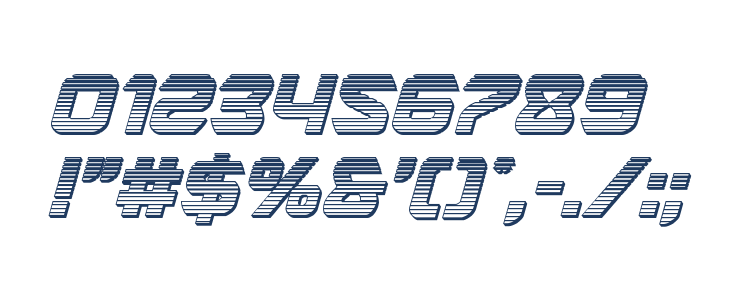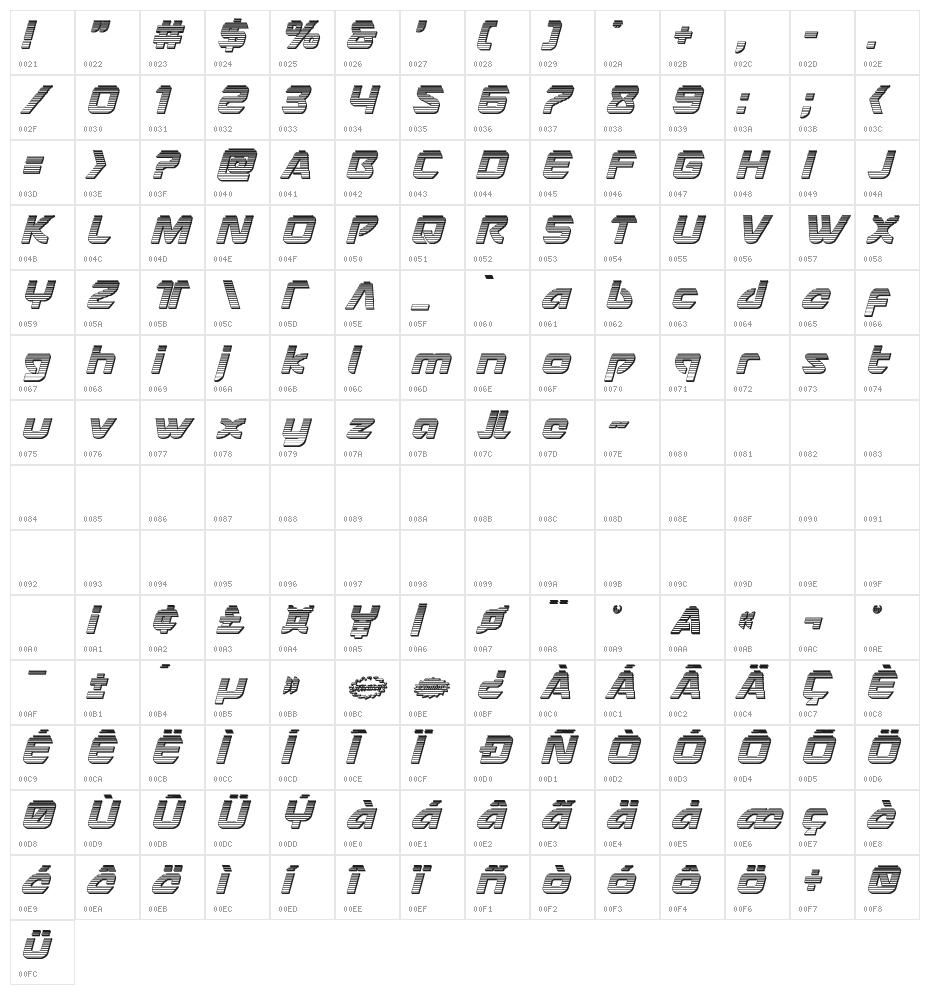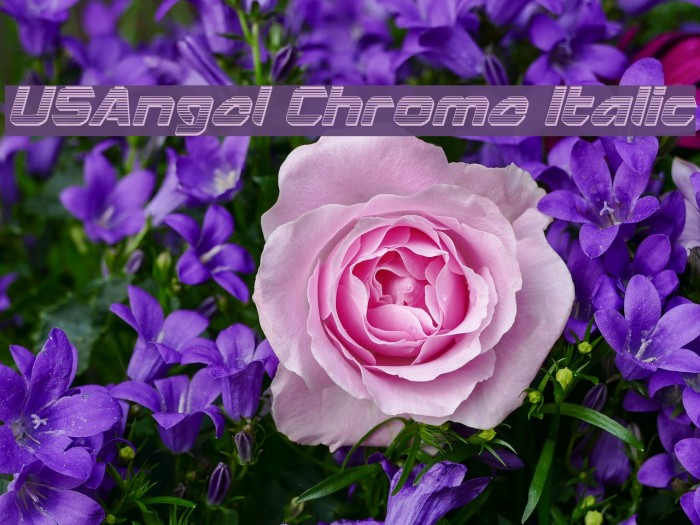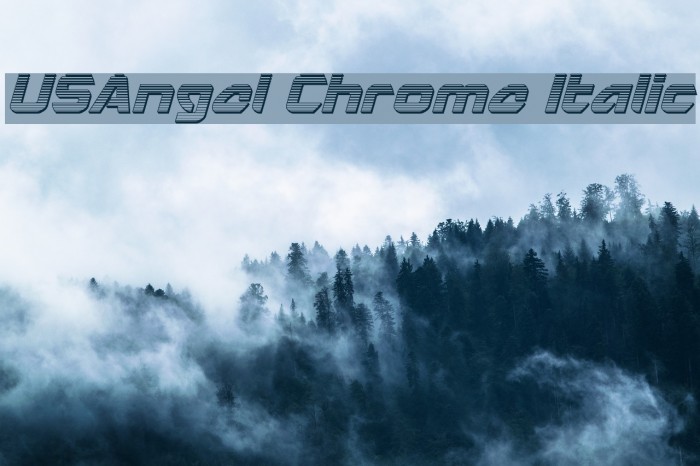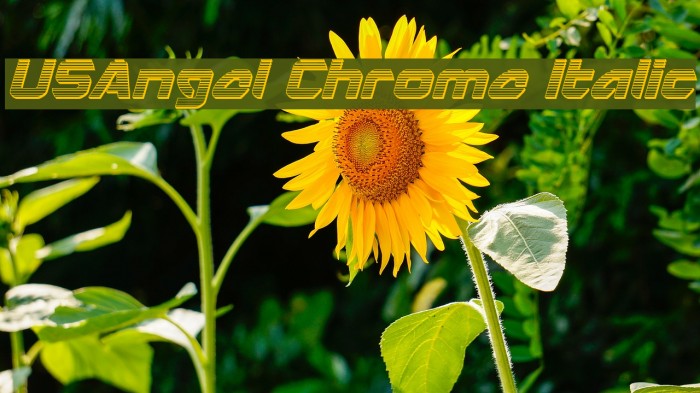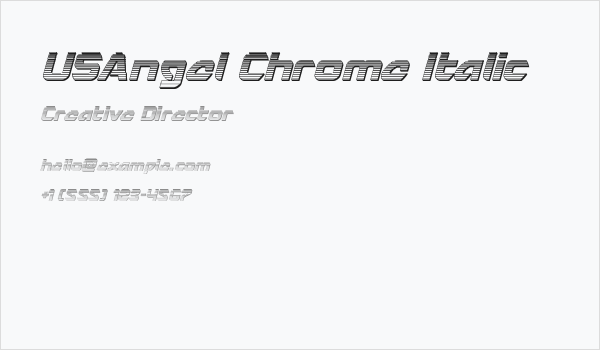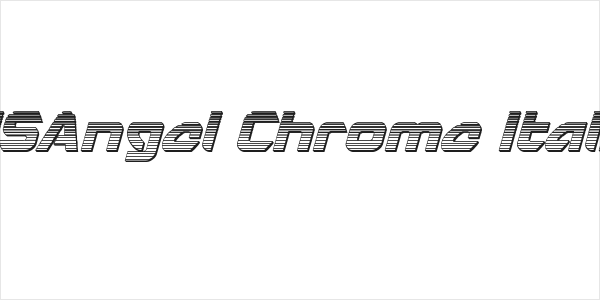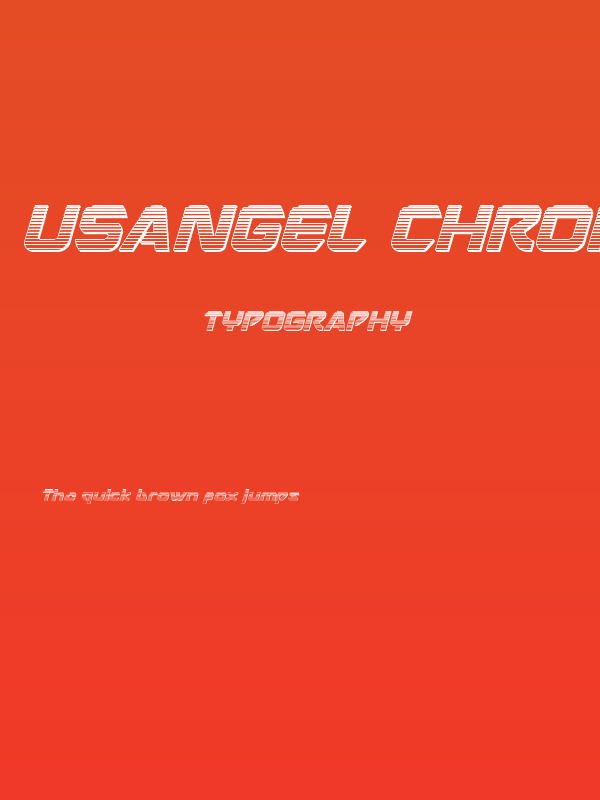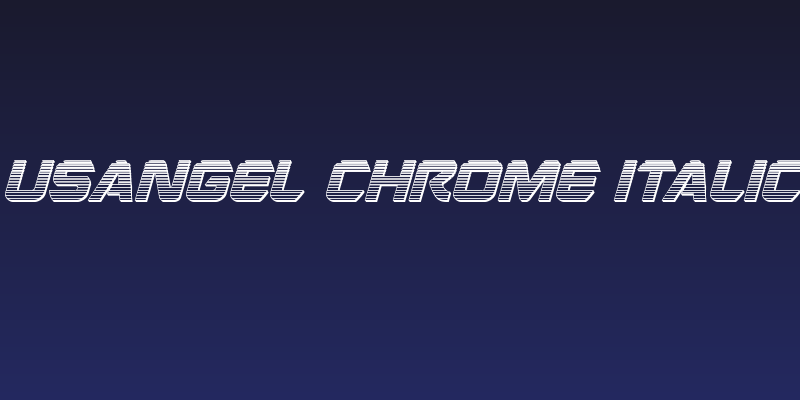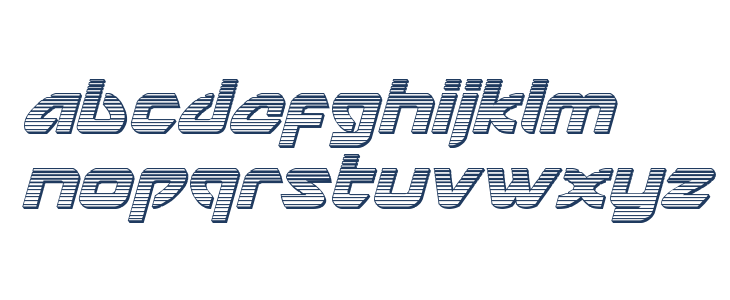
USAngel Chrome Italic Font
USAngel Chrome Italic Description
This font features a bold, futuristic design with a distinct chrome-like appearance. The characters are italicized, giving them a dynamic and forward-leaning posture. Each letter is composed of multiple parallel lines, creating a striped effect that adds depth and a sense of motion. The font is highly stylized, making it ideal for attention-grabbing headlines or logos. Its unique aesthetic is reminiscent of retro-futuristic themes, blending modernity with a vintage touch. The uppercase and lowercase letters maintain a consistent style, while the numbers and special characters are equally bold and striking.
Overall StyleFuturistic, Retro
Proposed ProjectsIdeal for sci-fi themed projects, video game titles, tech company logos, or any design requiring a bold, futuristic aesthetic.